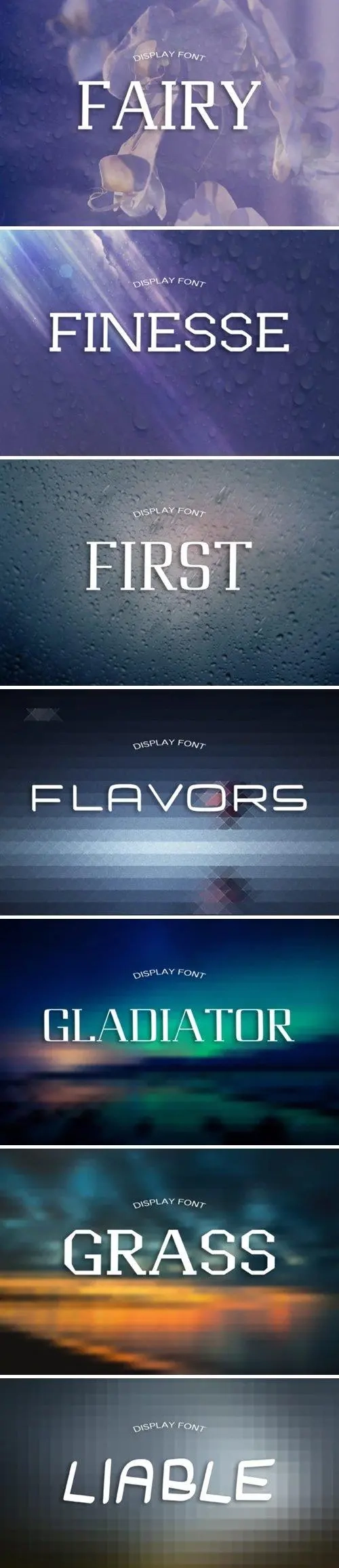
Creative Font Bundle
Elevate your design projects with our Creative Font Bundle, a carefully curated collection of diverse typefaces that cater to various styles and applications. This bundle includes a range of font styles, from elegant serifs to modern sans-serifs, ensuring you have the perfect typography for any project.
• Multiple font styles: serif, sans-serif, script, and display
• Variety of weights: light, regular, bold, and extra bold
Each font in this bundle is designed with precision, providing excellent legibility and versatility. The included weights allow for creative expression in both headings and body text.